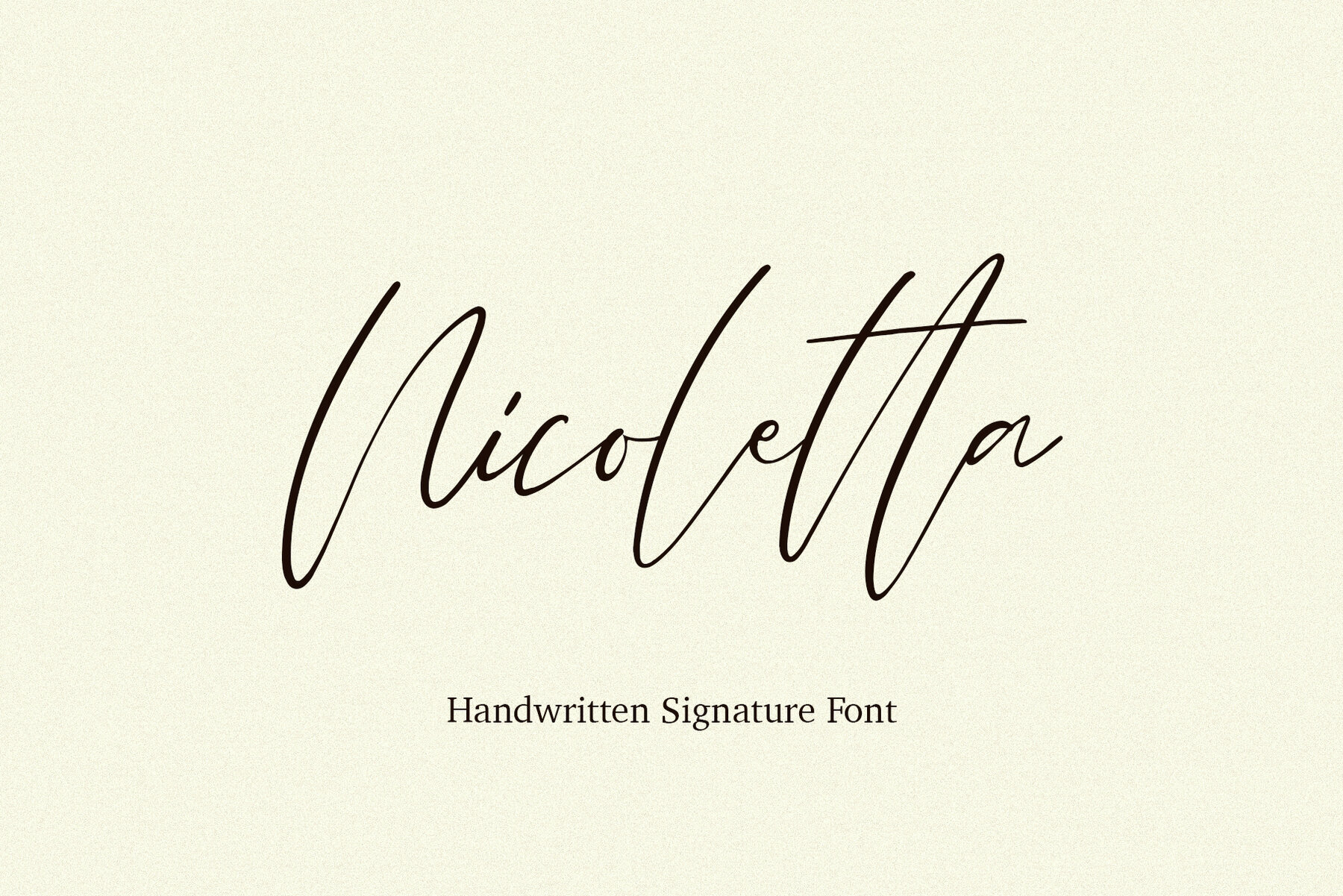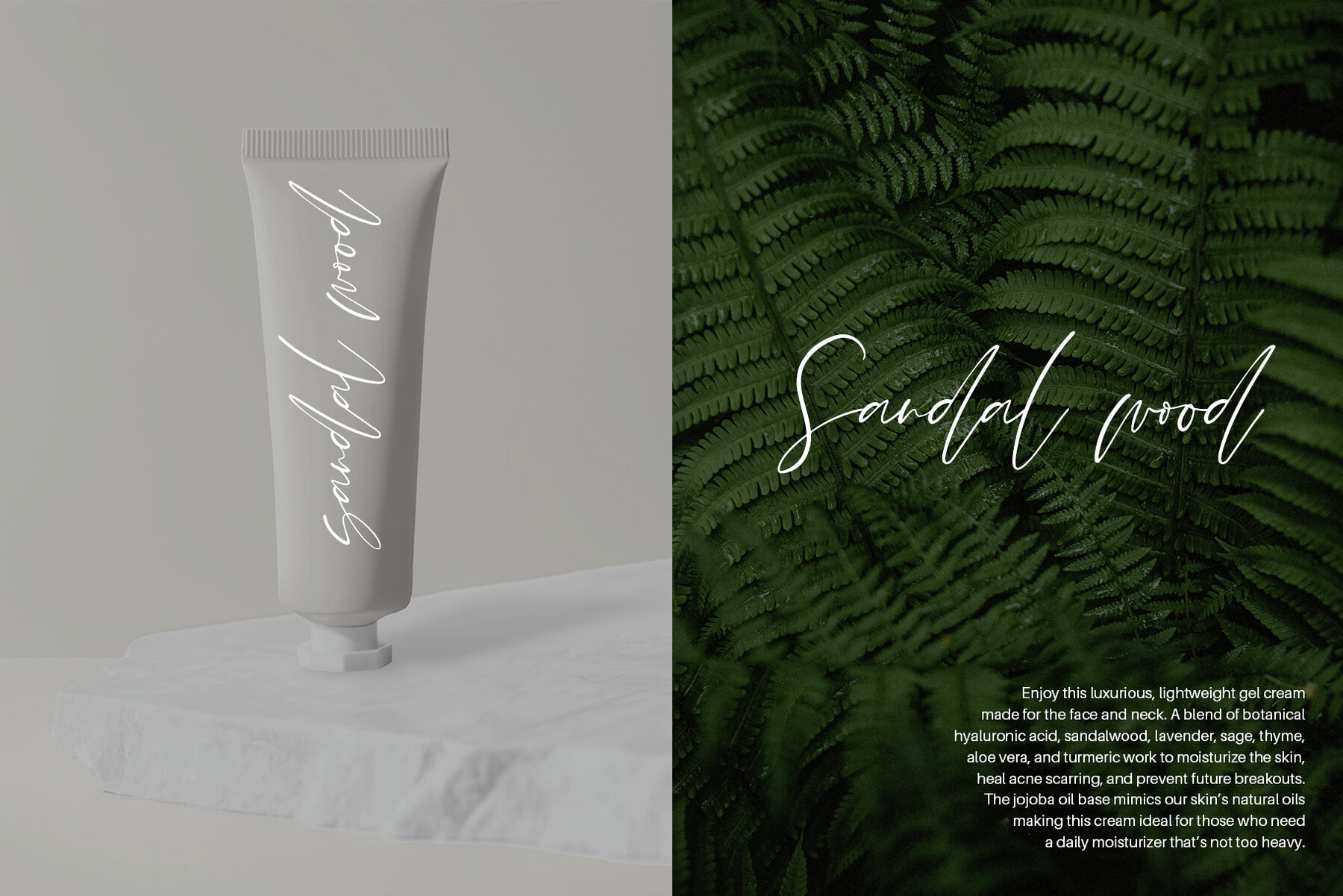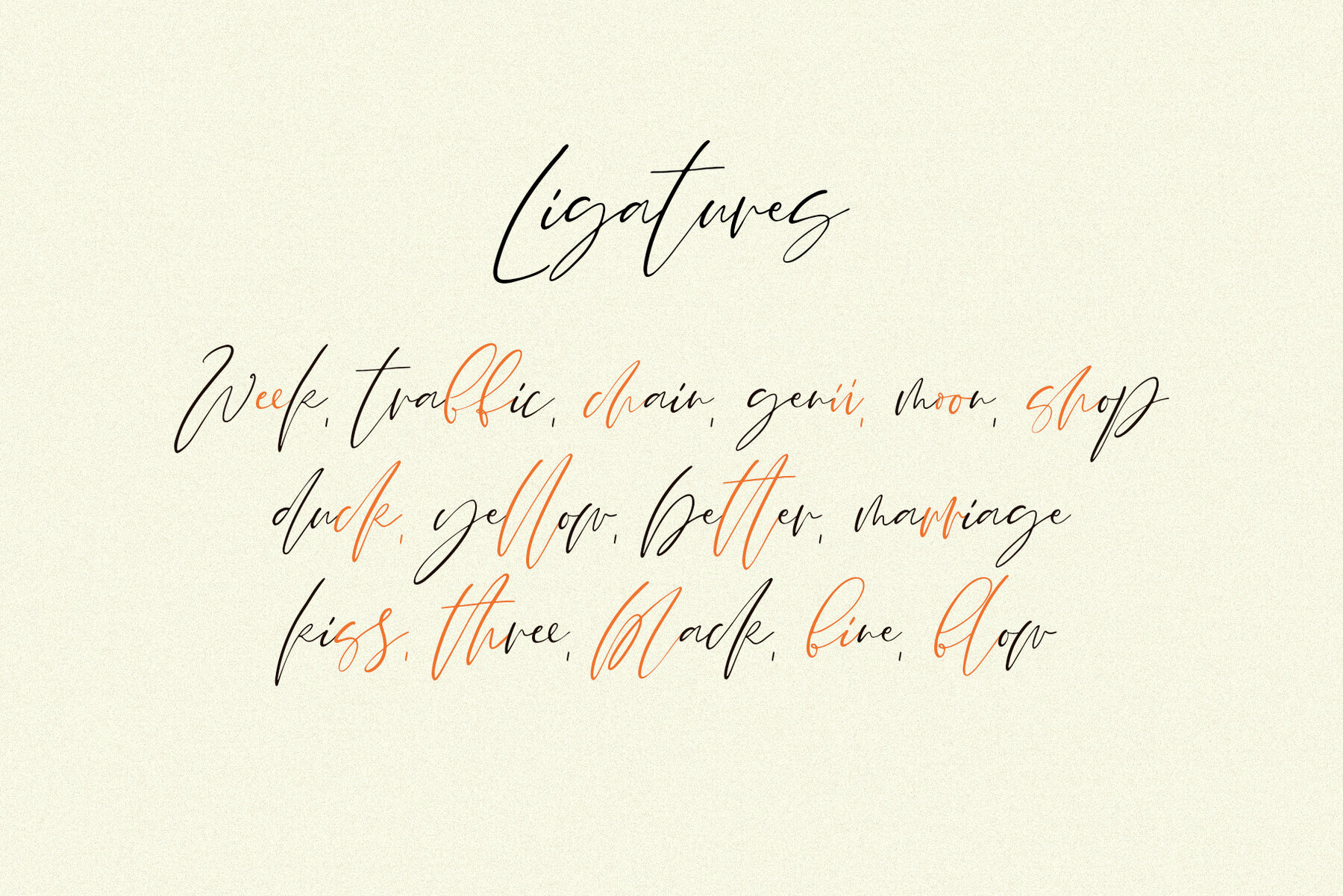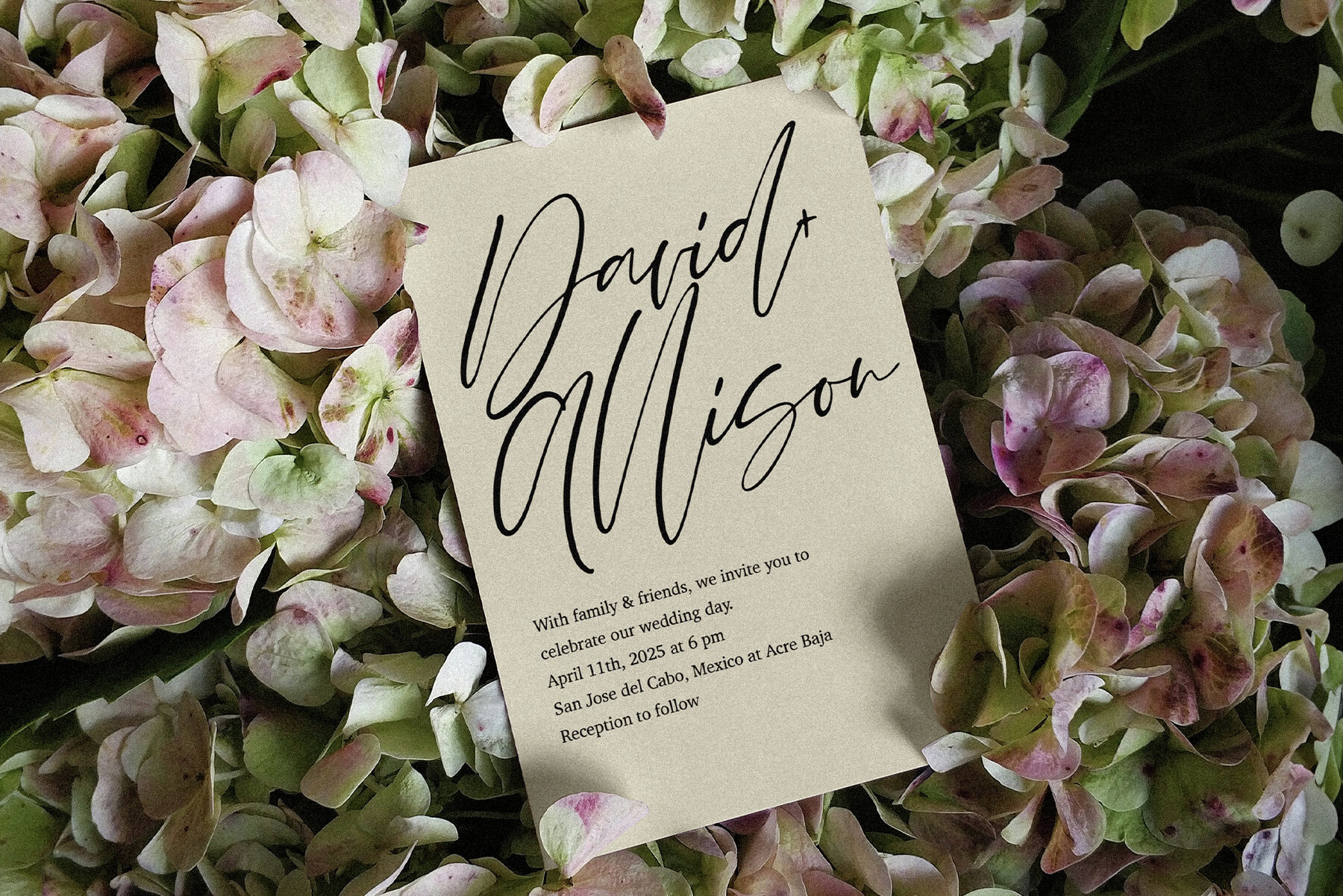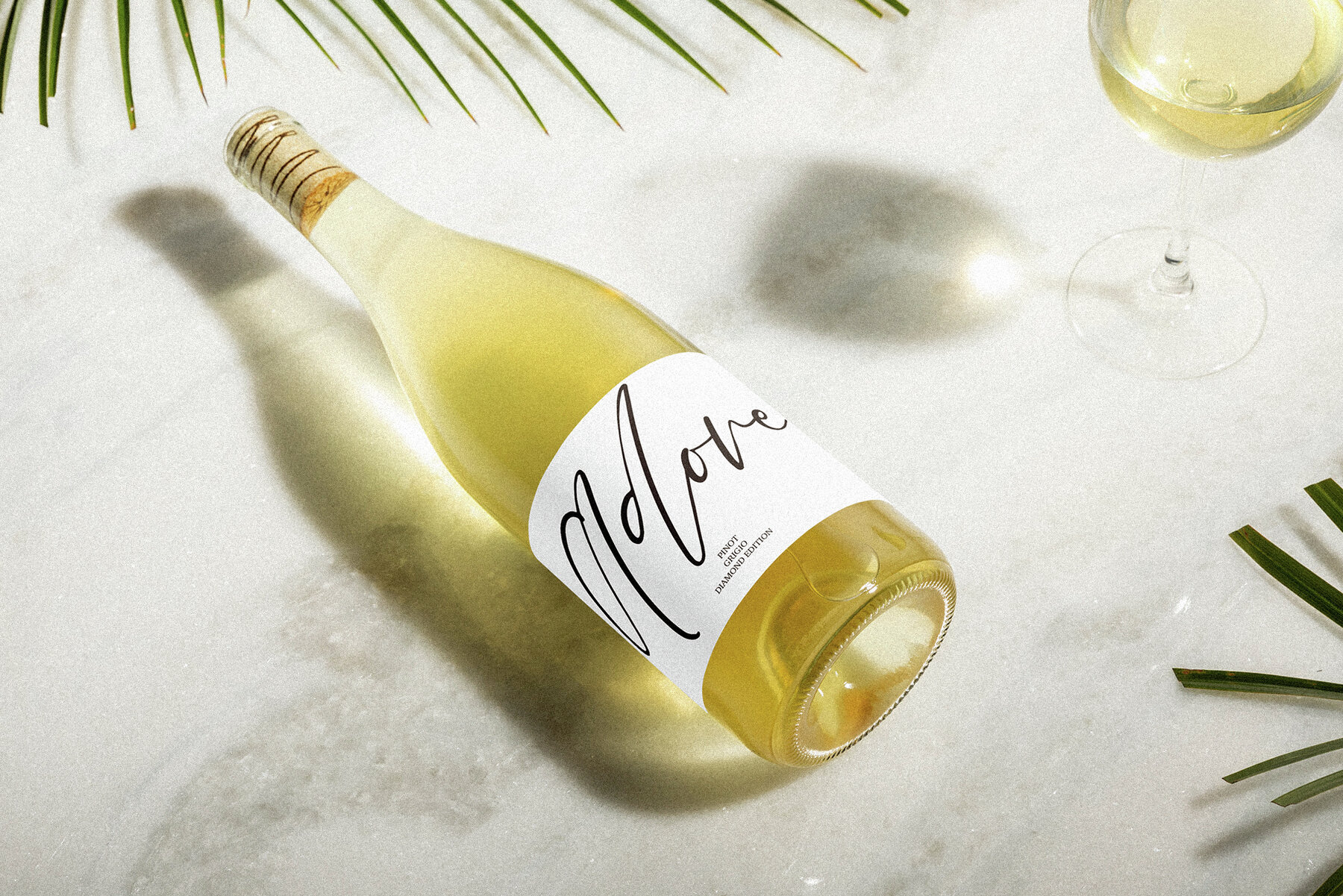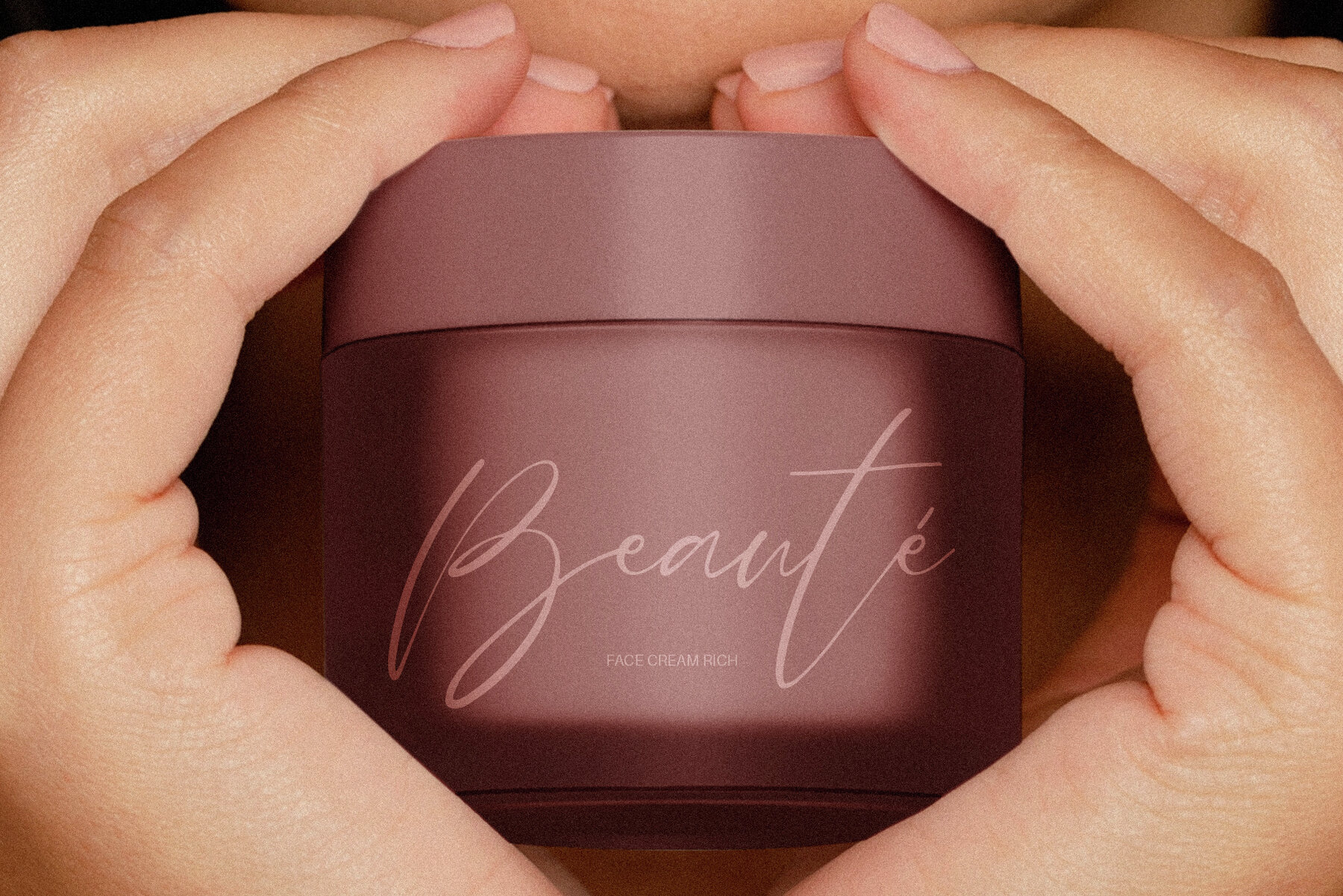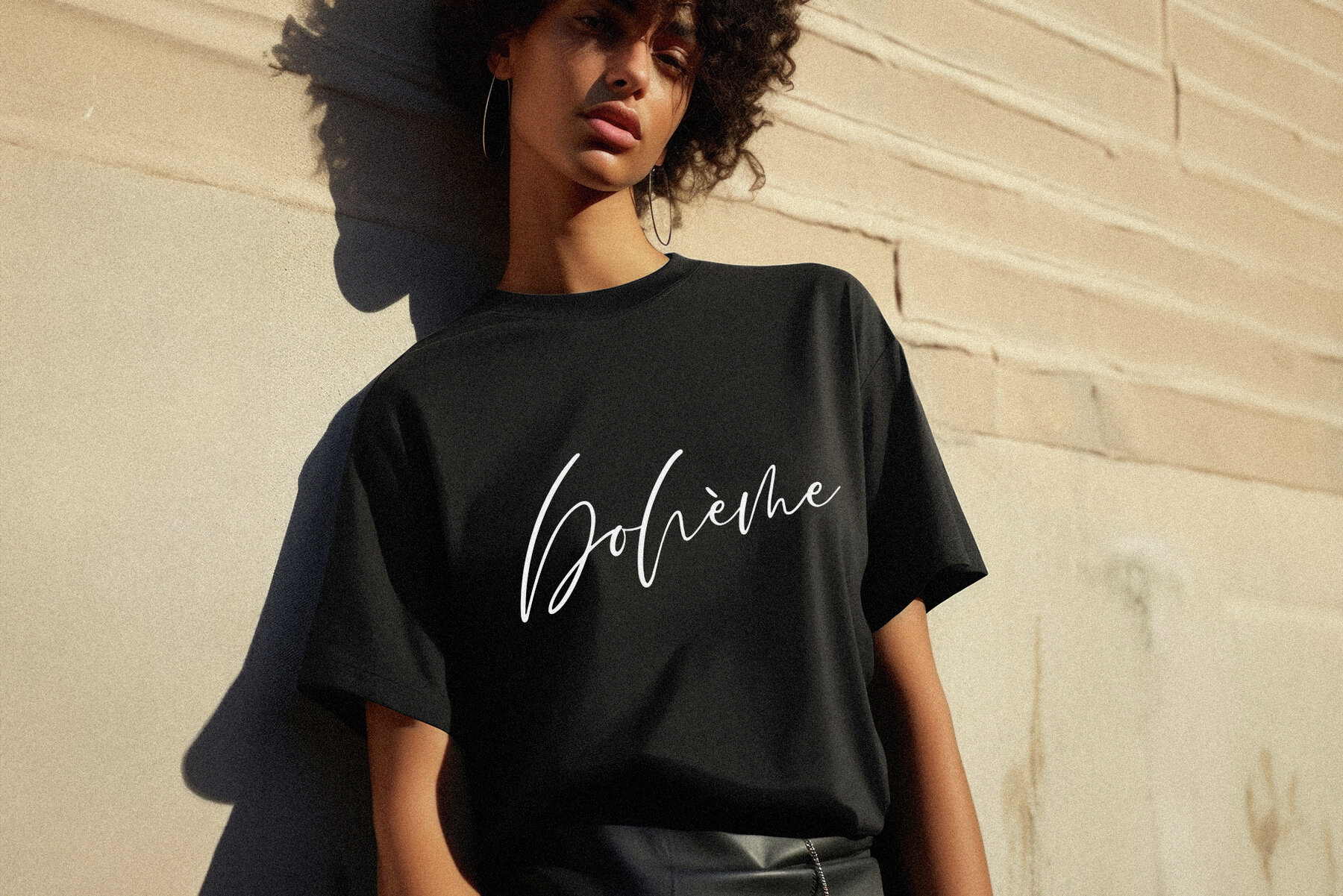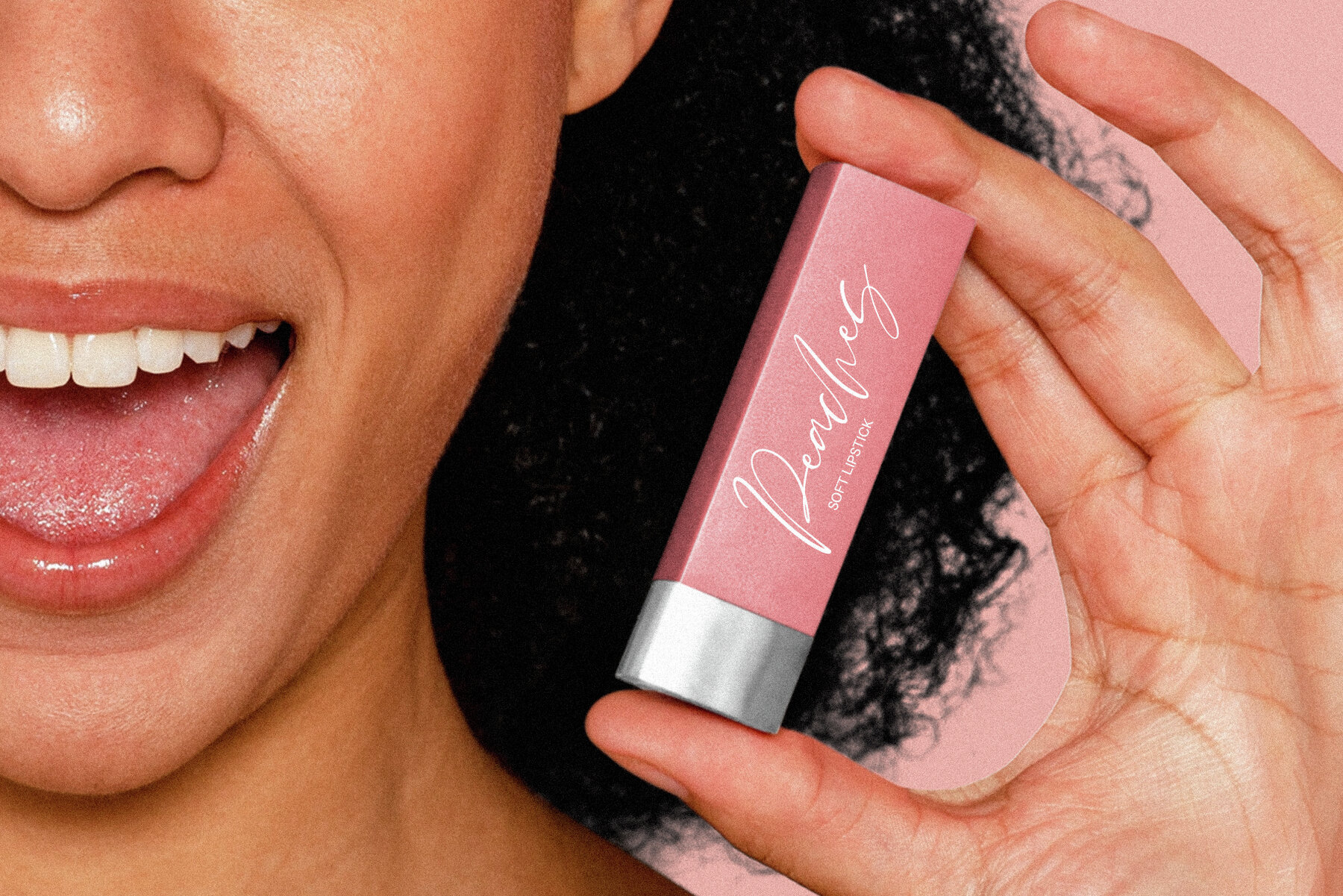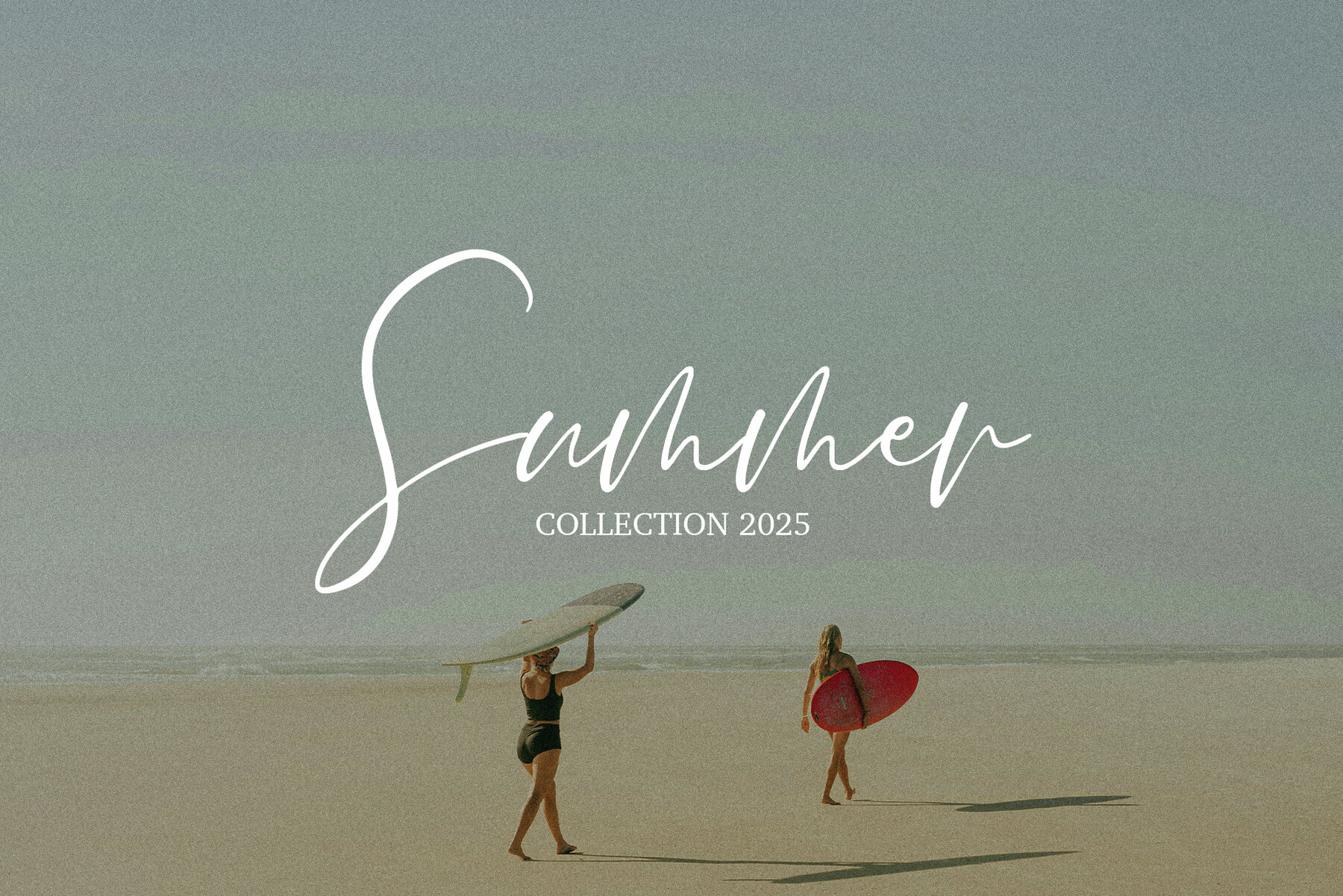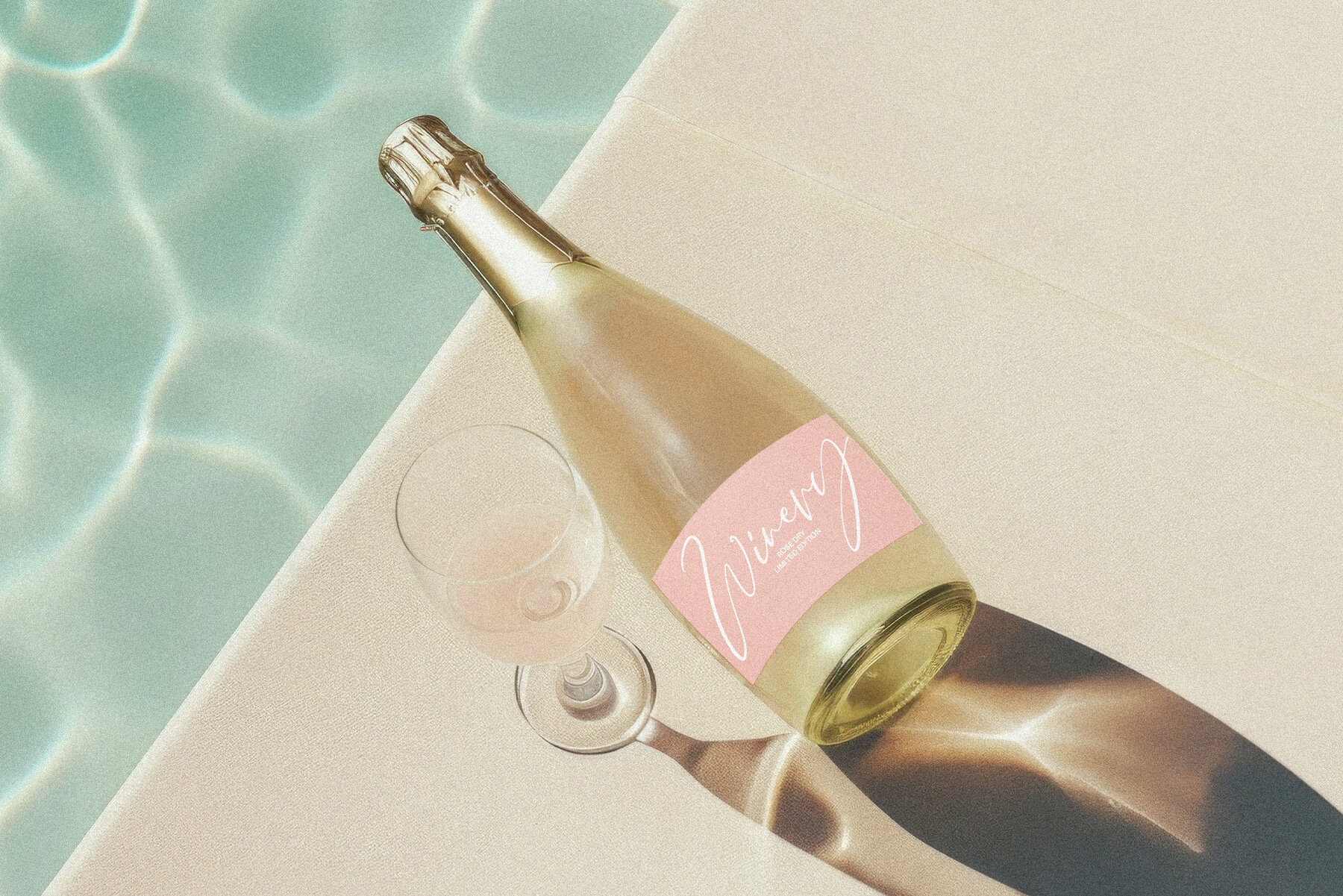
Nicoletta Font
Nicoletta is a sophisticated handwritten signature font, ideal for adding a personal touch to greeting cards, wedding stationery, photographer watermarks, logos, modern websites, and apparel design. This beautiful script font offers a full set of standard alphabet characters and punctuation, making it versatile for a wide range of creative projects.
Nicoletta features handwritten ligatures and PUA encoding, ensuring seamless access to extra characters without any special software. It also includes multilingual characters, making it an excellent choice for international projects. Perfect for designers seeking a stylish and functional handwritten font, Nicoletta helps bring a unique and elegant flair to your creative endeavors.